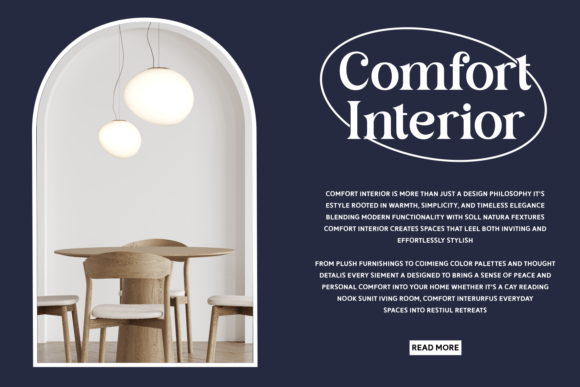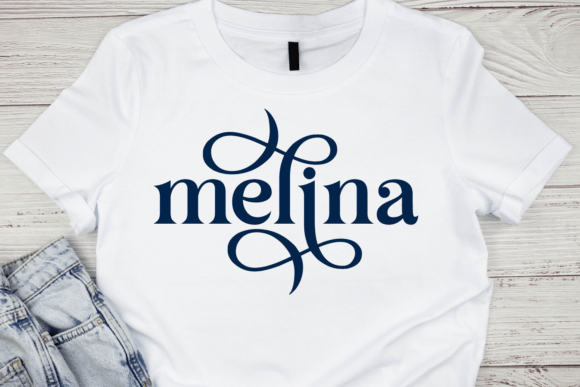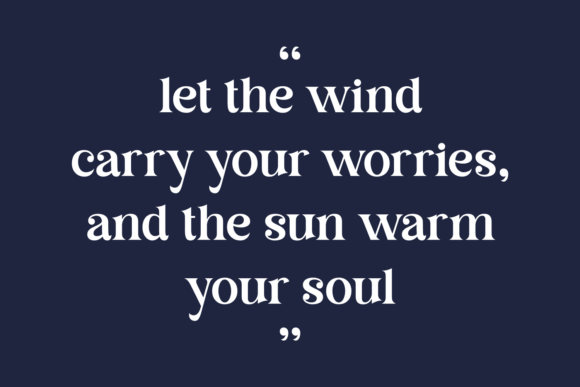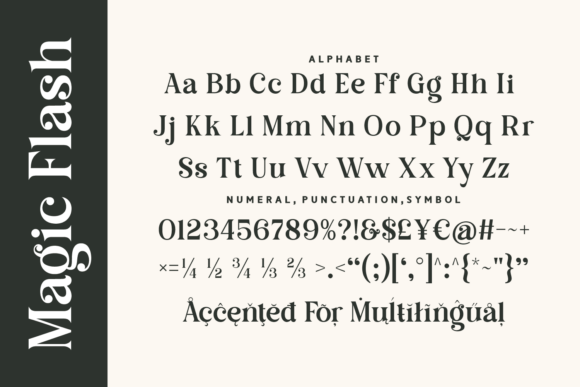
Introduction to Magic Flash Font Font
Fonts play a crucial role in design, and the Magic Flash Font font is a typeface that brings both character and versatility to any project. Whether you’re working on a branding project, a website, or a print design, the Magic Flash Font font offers a unique style that can elevate your work.
Magic Flash is a whimsical serif font that shines with enchanting swashes, playful curves, and sparkling details.
Perfect for fairytale-inspired branding, invitations, childrenβs books, and creative packaging, Magic Flash adds a magical charm to any project Its bold yet decorative style makes it ideal for designs that need elegance with a touch of fantasy.
Key Features of Magic Flash Font Font
Why Choose Magic Flash Font Font?
The Magic Flash Font font is more than just a typeface β it’s a design tool that helps you communicate your message with style and clarity. Its unique character set and versatile design make it suitable for a wide range of applications, from elegant invitations to bold headlines.
With its carefully crafted letterforms and balanced proportions, the Magic Flash Font font ensures readability and visual appeal across all mediums.
What makes Magic Flash Font font special?
The Magic Flash Font font stands out with its unique design, exceptional readability, and versatility across various design applications.